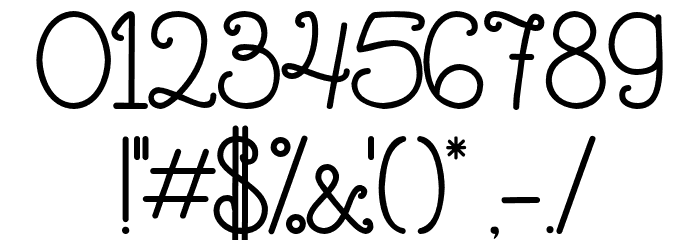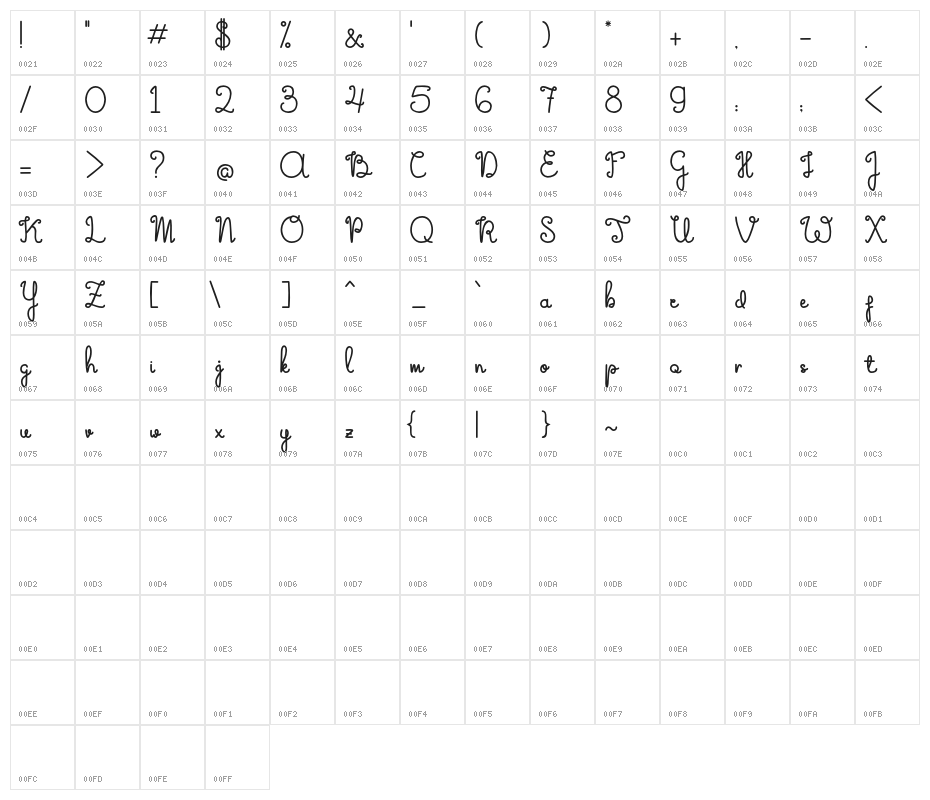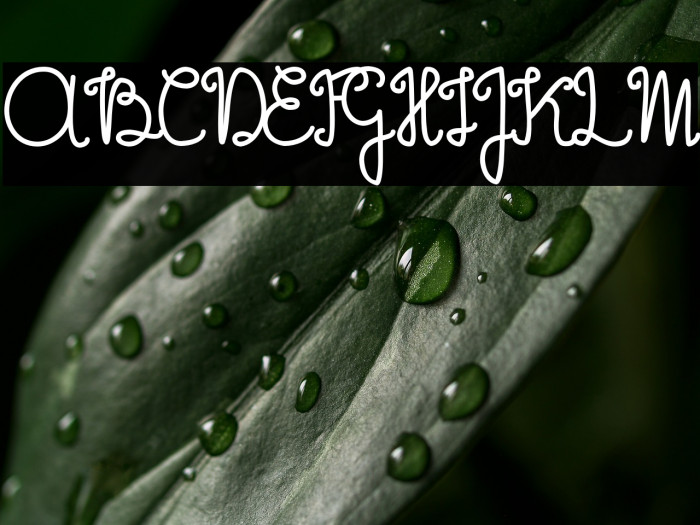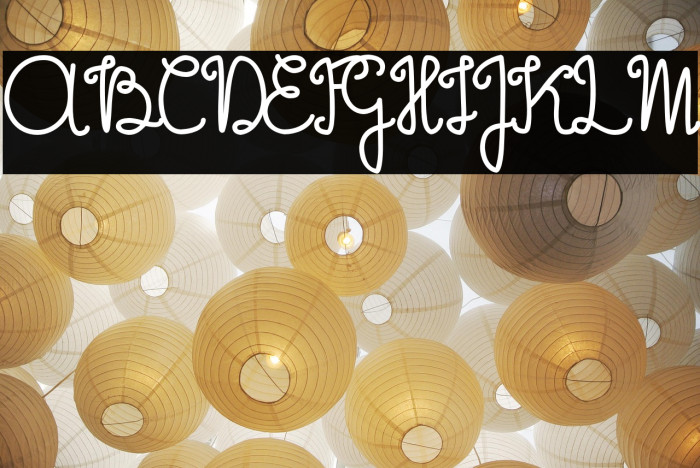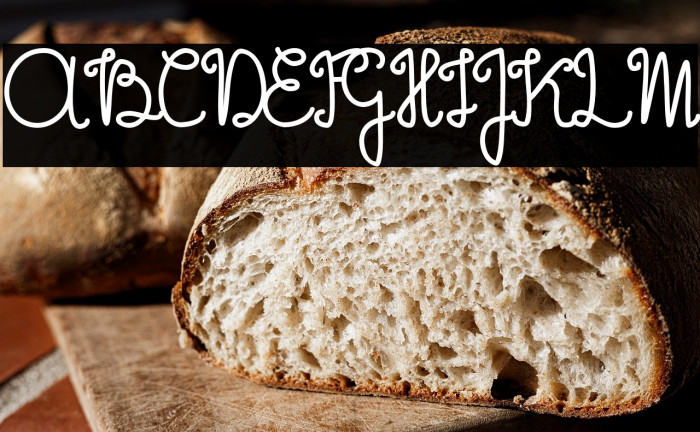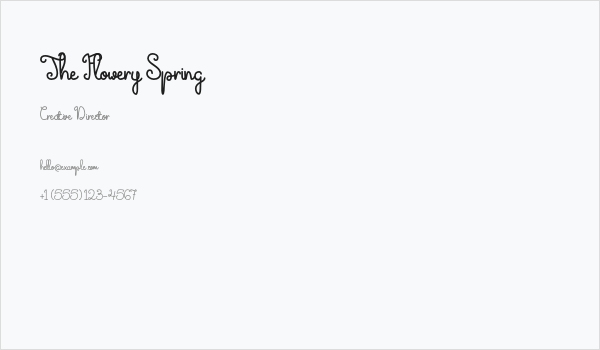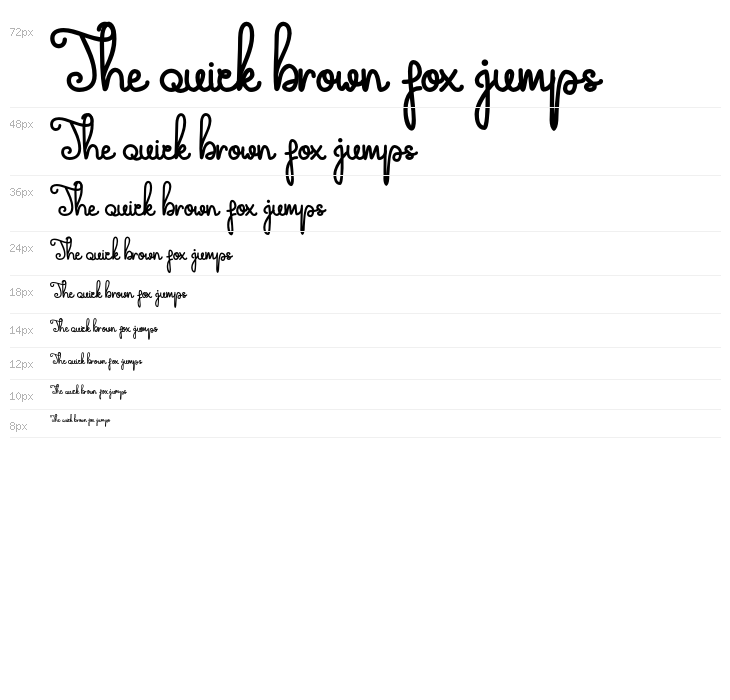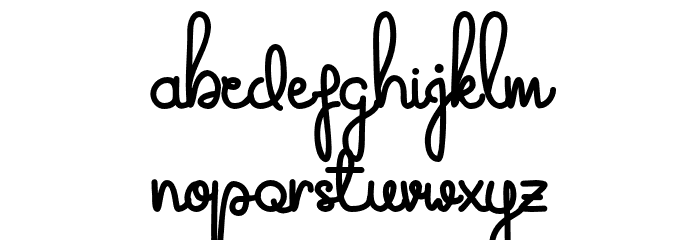
The Flowery Spring Font
The Flowery Spring Description
This font features a playful and whimsical design, characterized by its flowing, interconnected letters that resemble cursive handwriting. The uppercase letters maintain a consistent height with rounded edges, while the lowercase letters exhibit a more varied baseline, adding to the font's dynamic and lively appearance. The numerals and special characters are crafted with the same fluidity, ensuring a cohesive look across all elements. The overall style is reminiscent of a handwritten script, making it ideal for projects that require a personal and friendly touch.
| Proposed Projects | Ideal for greeting cards, invitations, children's books, and playful branding projects. |